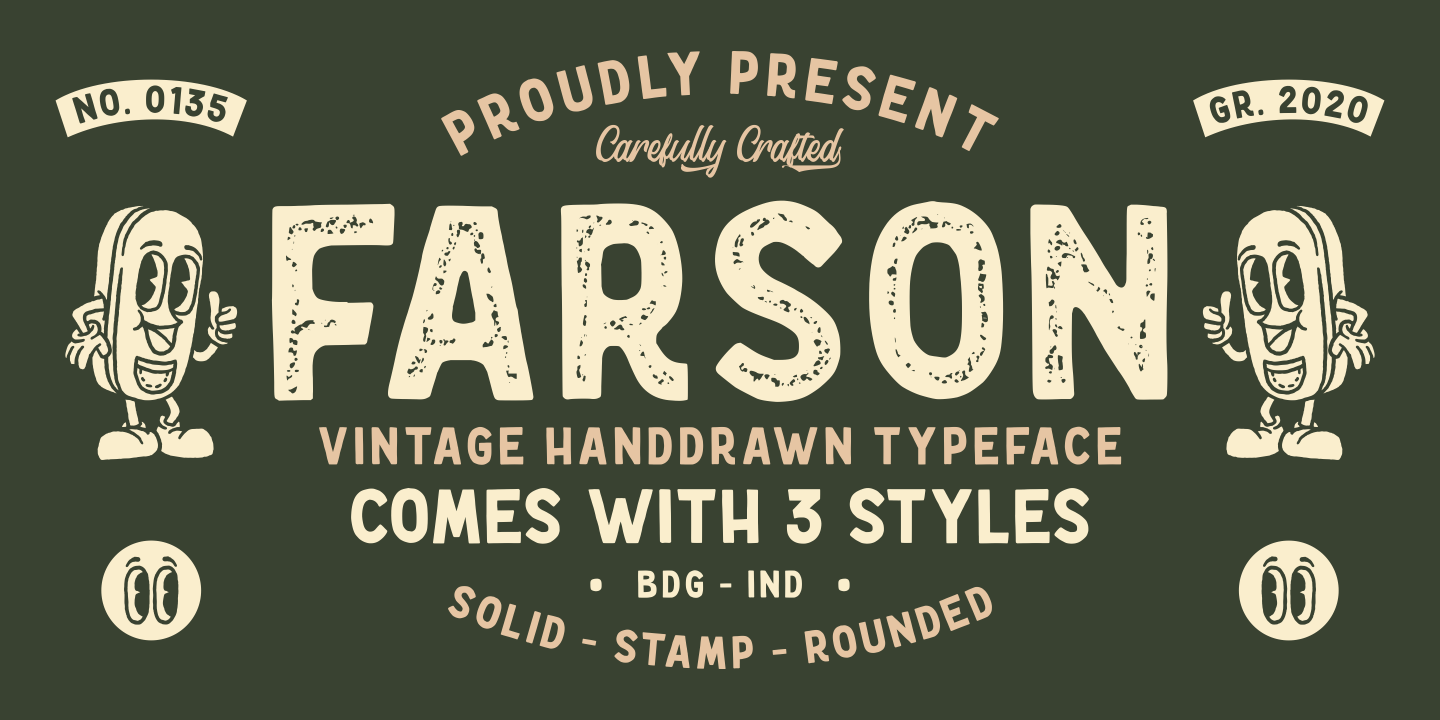
Farson Family Font is perfect for family-oriented business branding, children's book illustrations, educational materials, daycare center signage, family restaurant menus, community event posters, school newsletters, parenting blog designs, toy packaging, family photography studios, pediatric office materials, and wholesome brand identities. This warm typeface brings together generations with its approachable and friendly character that appeals to both children and adults.
What makes Farson Family Font so exciting is its unique ability to create instant emotional connection through its warm, inviting character that embodies the spirit of family togetherness. The font features carefully designed letterforms with gentle curves and balanced proportions that feel both playful and reliable, making it perfect for communications that need to build trust with families. Its versatile design works beautifully across all ages while maintaining excellent readability, creating a sense of comfort and belonging that resonates with family-centered audiences.
The Farson Family Font family includes multiple weights and styles designed to work harmoniously together, offering comprehensive options for creating cohesive family-friendly communications. Each variant maintains the original's warm, approachable character while providing flexibility for different applications, from playful children's materials to sophisticated parent-focused designs.
Whether you're developing family business identities, creating educational content, or designing community-focused materials, Farson Family Font Free Download delivers the perfect balance of warmth and professionalism that families trust. This exceptional typeface enhances family-oriented communications, making it an essential choice for designers seeking typography that effectively connects with multigenerational audiences and communicates values of togetherness, care, and reliability.